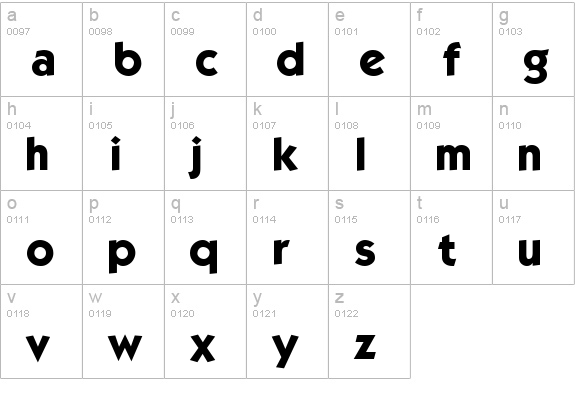
Kabel Bd Normal Font Details
Kabel Bd Normal is the standard, neutral variant in the Kabel typeface family \xE2\x80\x94 well suited to general body text, paragraphs, and standard typographic work.
Kabel Bd Normal font is a versatile and elegant typeface that exudes a sense of sophistication and professionalism. With its clean lines and balanced proportions, this font is perfect for a wide range of design projects, from corporate branding to editorial layouts. The Kabel Bd Normal font offers a classic and timeless appeal, making it a go-to choice for designers looking to create a refined and polished look. Its bold weight provides a strong presence, while the regular strokes maintain a sense of clarity and readability. One of the most appealing aspects of the Kabel Bd Normal font is that it is freely available to download at FontsMarket.com. This means that designers and typographers can access this exceptional font without any cost or hassle. It allows for a seamless integration into any project, be it personal or commercial. Whether you're creating a logo, designing a website, or working on a print publication, the Kabel Bd Normal font offers a wide range of possibilities. Its versatility allows for various applications and ensures that your designs will stand out from the crowd. With its timeless elegance and free availability, the Kabel Bd Normal font is a must-have for any designer or typographer. Discover the endless possibilities this font has to offer and download it today at FontsMarket.com.